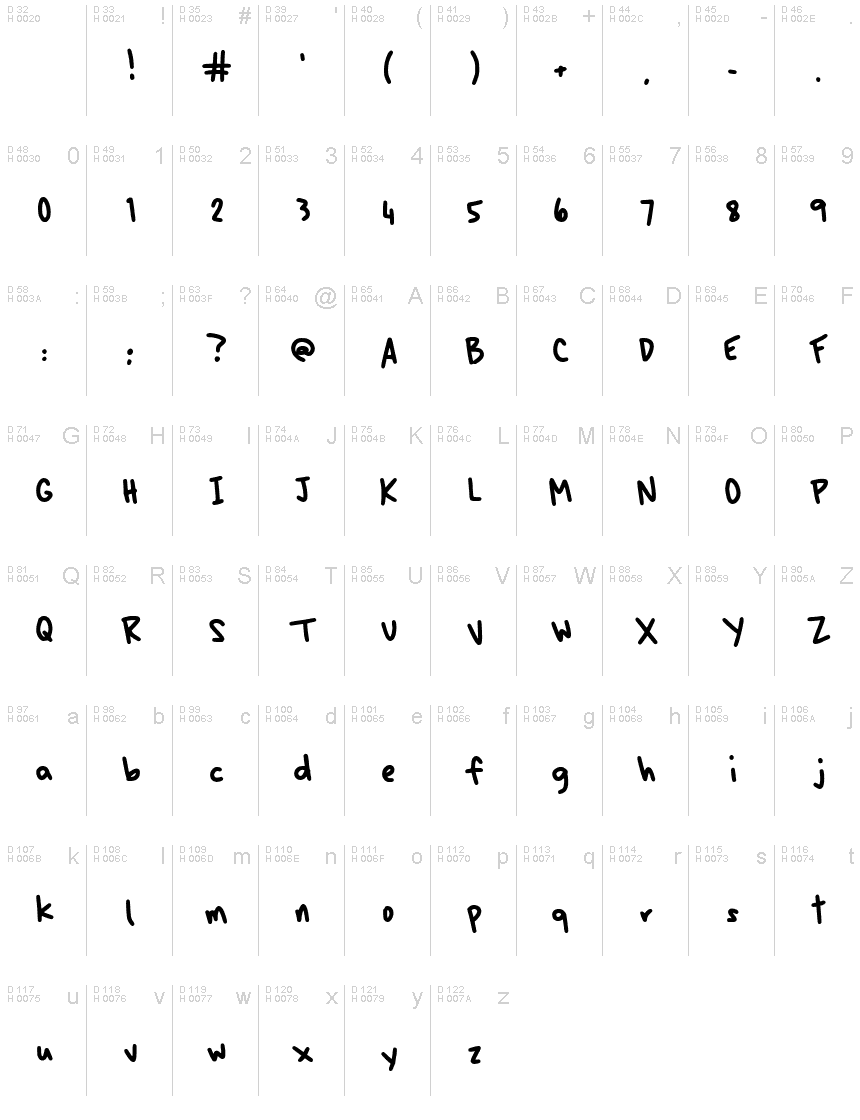
Real Regular
Real, a captivating handwritten font by arisSome1, brings a touch of authenticity to any project. With its semi-bold weight and casual style, this font is perfect for adding a personal and inviting feel to various designs. Use it in logos and branding materials to create a warm and friendly impression. Real is also ideal for greeting cards, invitations, and social media graphics, infusing them with an effortless charm that captures attention. Whether you're working on fashion, lifestyle or food-related projects, this font will elevate your visuals with its unique appeal.